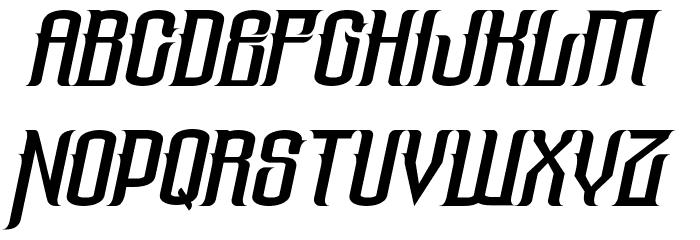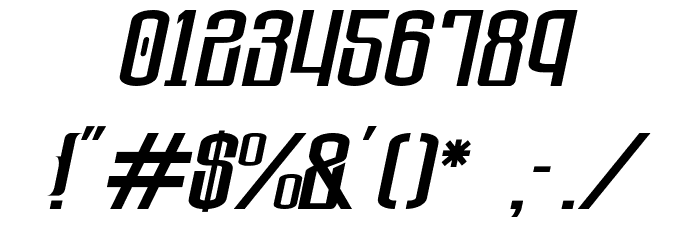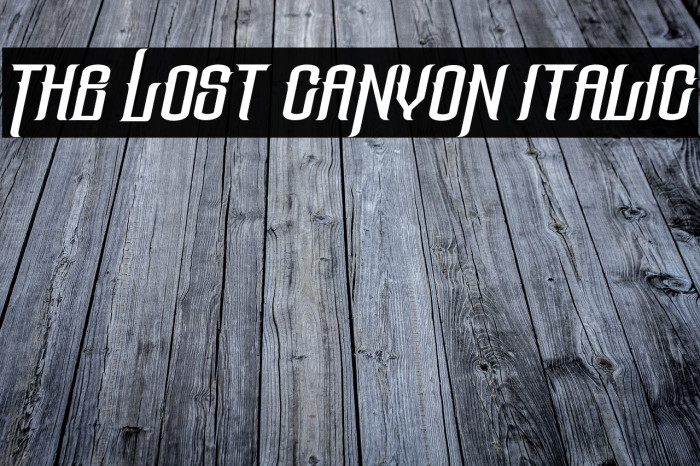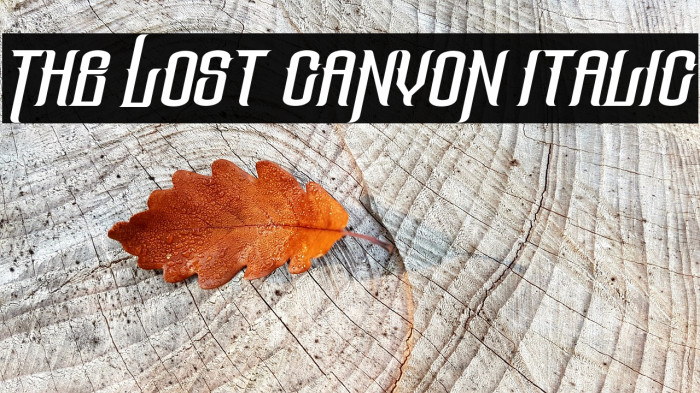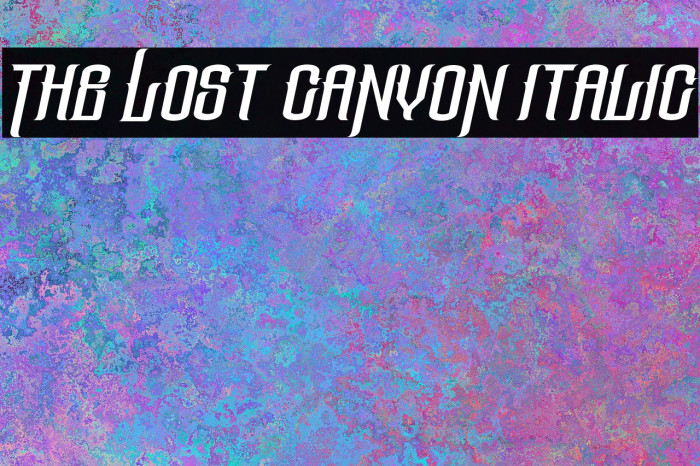
The Lost Canyon Italic Font
This font features a bold and dynamic italic style, characterized by sharp, angular lines and a distinct slant that gives it a sense of motion and energy. The uppercase and lowercase letters maintain a consistent height, creating a uniform appearance. The numerals are designed to complement the letters, with similar angular features. The special characters are crafted with the same attention to detail, ensuring they integrate seamlessly with the rest of the typeface. This font's unique style makes it stand out, offering a modern twist on traditional italic fonts.
A bold, angular italic font with a dynamic and modern style.
- Proposed Projects: Ideal for branding, posters, and headlines that require a bold and energetic look.